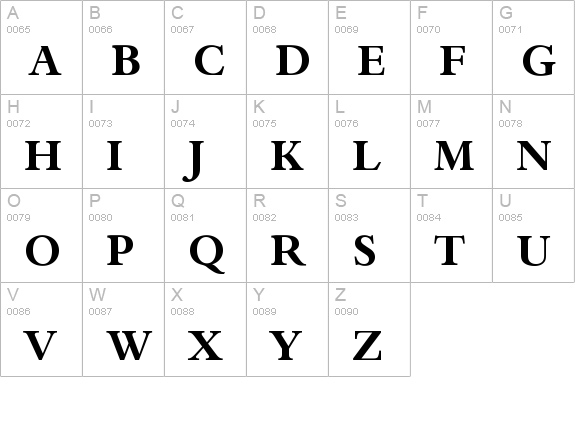
Bamberg-DemiBold is a sub-bold, structured variant in the Bamberg typeface family \xE2\x80\x94 well suited to sub-headlines and emphasised passages.
Bamberg-DemiBold is a modern and versatile font that strikes the perfect balance between elegance and readability. Its bold and confident letterforms are perfect for making a statement in any design project. With its clean lines and stylish appearance, Bamberg-DemiBold exudes a sense of sophistication and professionalism. This font is ideal for a wide range of uses, from branding and packaging to editorial design and web content. Its versatility makes it a valuable addition to any designer's toolkit. Whether you're creating a logo, poster, website, or social media graphics, Bamberg-DemiBold will help you stand out from the crowd. Best of all, Bamberg-DemiBold is available for free download at FontsMarket.com. This means you can access this high-quality font without breaking the bank, making it a great choice for designers on a budget. Don't miss out on the opportunity to elevate your designs with the sleek and modern aesthetic of Bamberg-DemiBold. Download it today and start creating stunning visuals with ease.